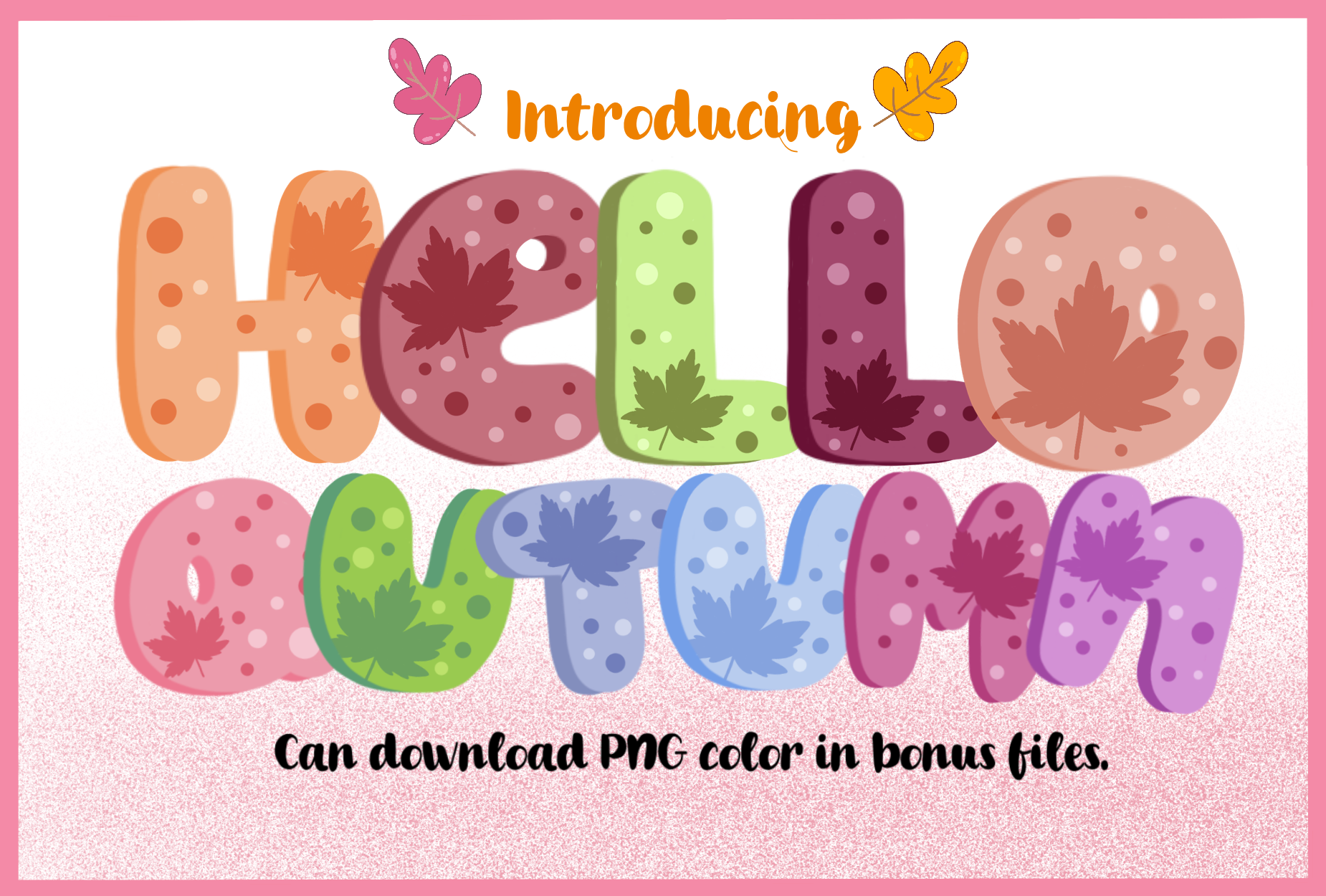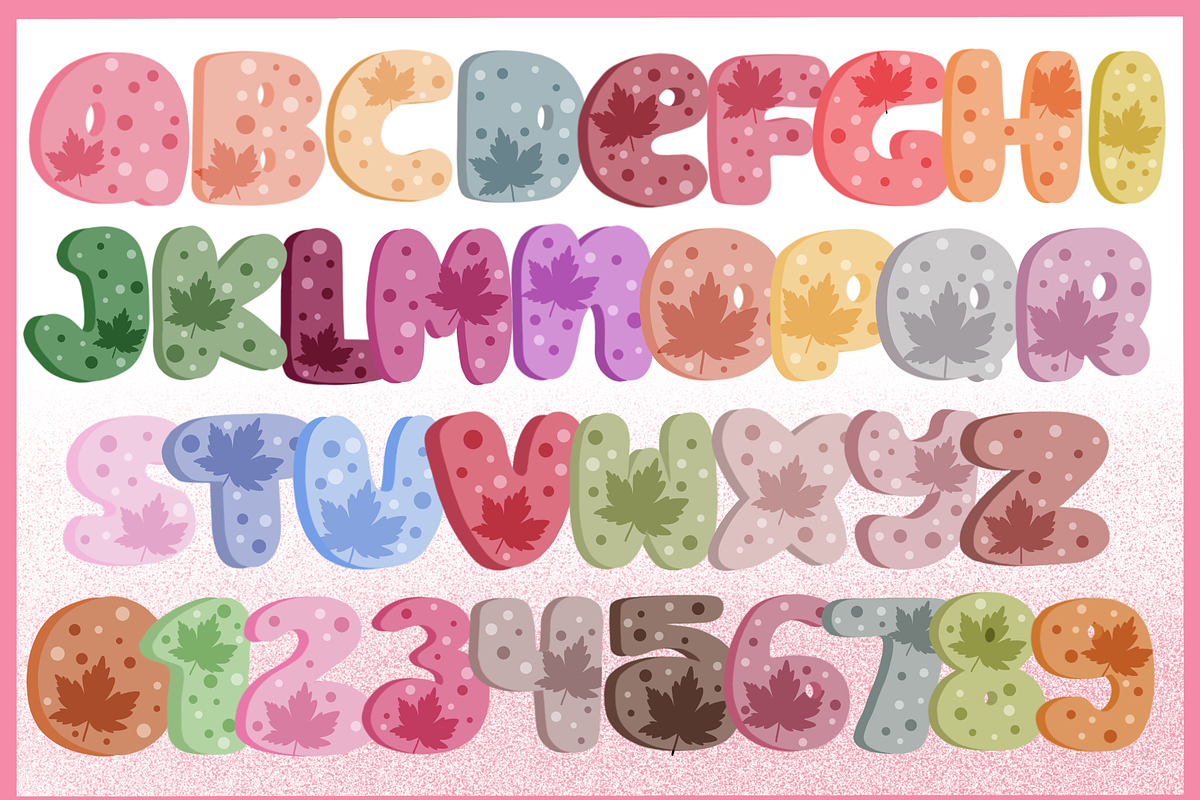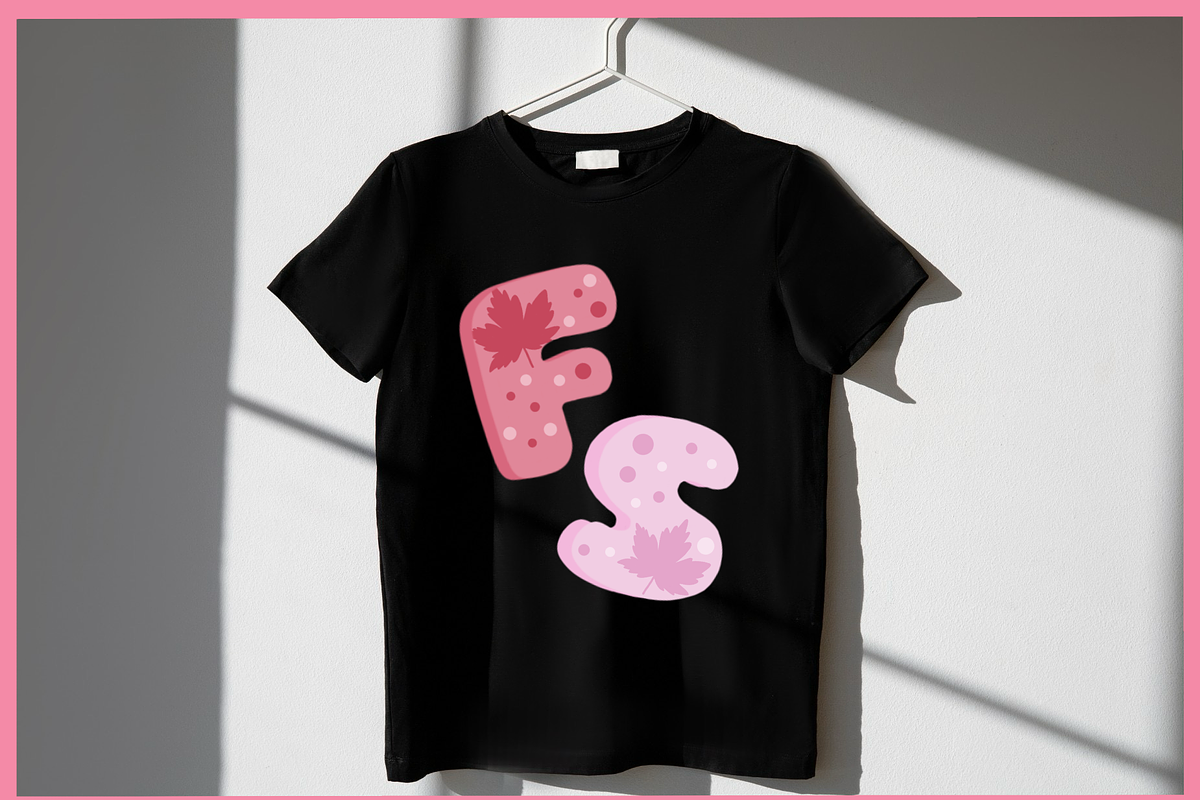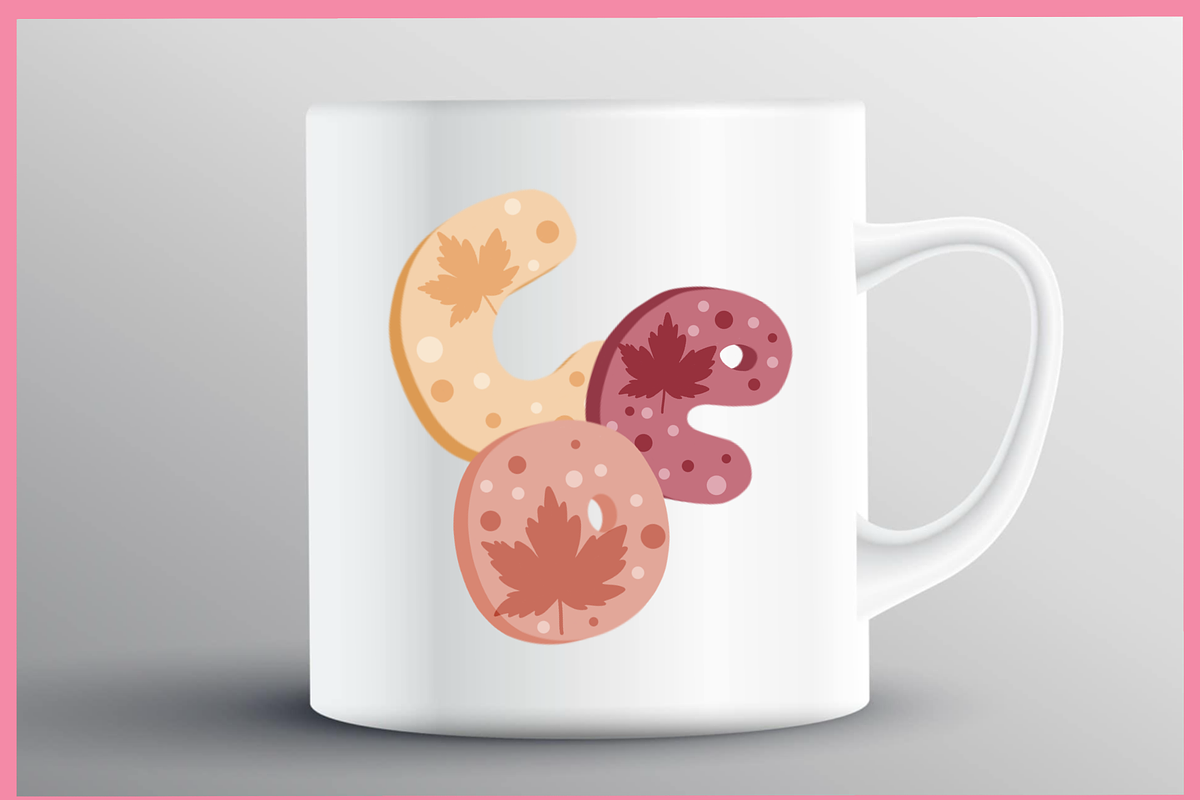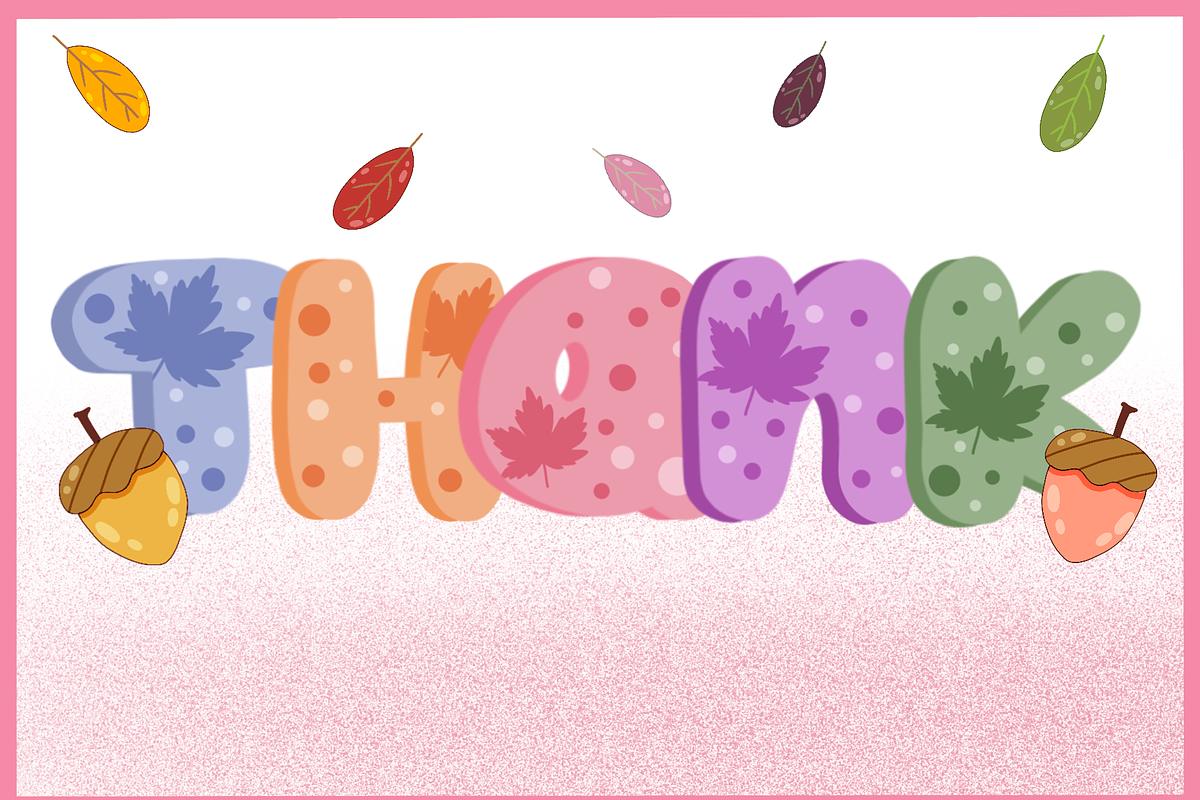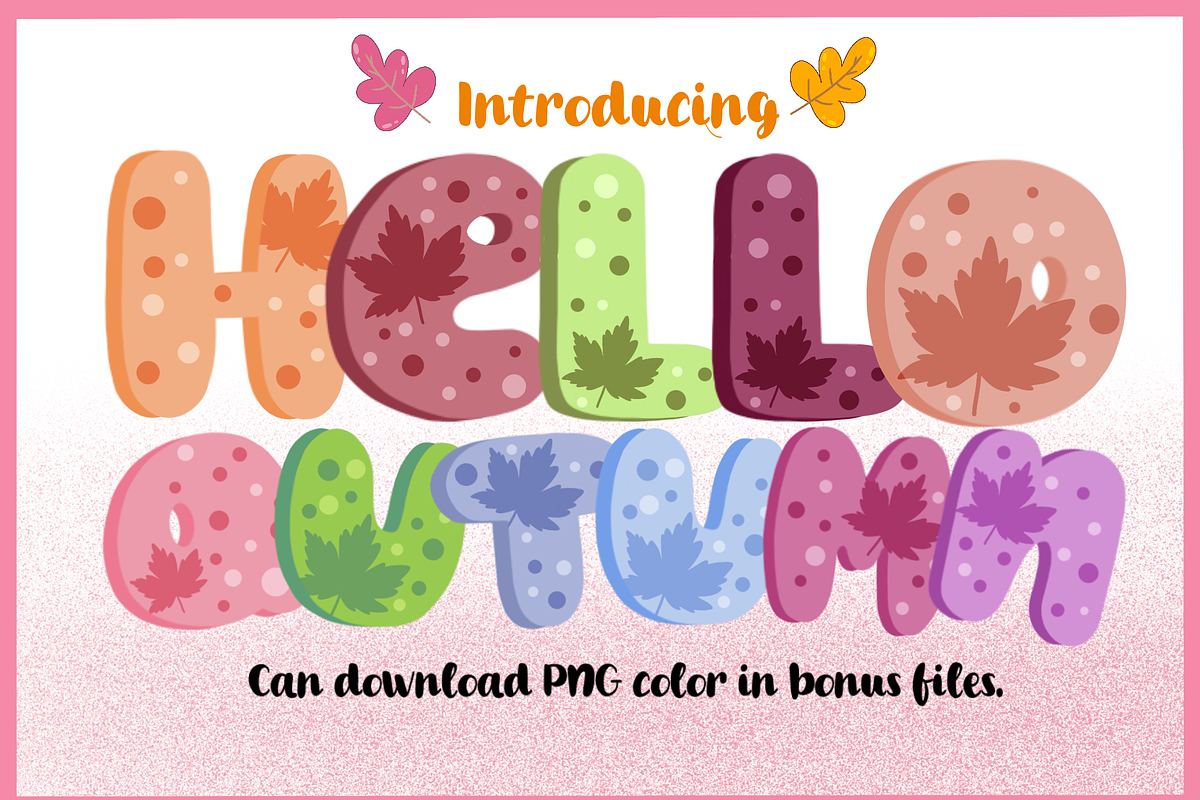
Hello Autumn-PNG fonts
Hello Autumn “Hello Autumn” is a font that’s full of fall charm! Each letter is designed with colorful leaves nestled inside, bringing the feeling of the cozy season right to your eyes. It’s perfect for adding a touch of autumnal magic to your designs or messages.